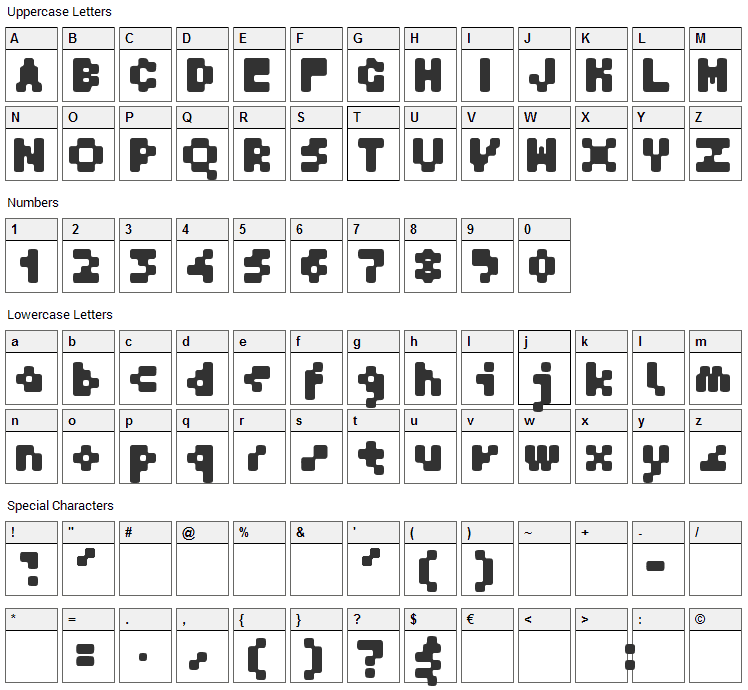
Krater Font
Font Name:Krater
Developer:GF Fonts
Category:Techno > Various
GF Krater is a new FF Moonbase Alpha- but I draw all characters by myself in a new and other way to prevent copyright problems.